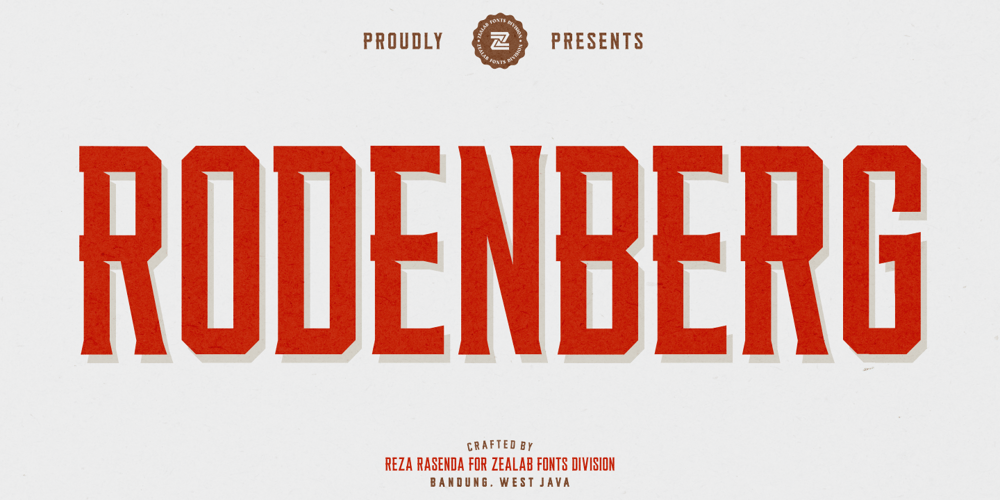
Rodenberg Font Family was designed by Reza Rasenda and published by Zealab Fonts Division. Rodenberg contains 1 styles and family package options. Rodenberg is multipurpose display typeface with cool characters, inspired by urban culture that combine the classic and modern style. It is perfect for headlines, logotypes, signs, posters, greeting card, letterhead, t-shirts and more.